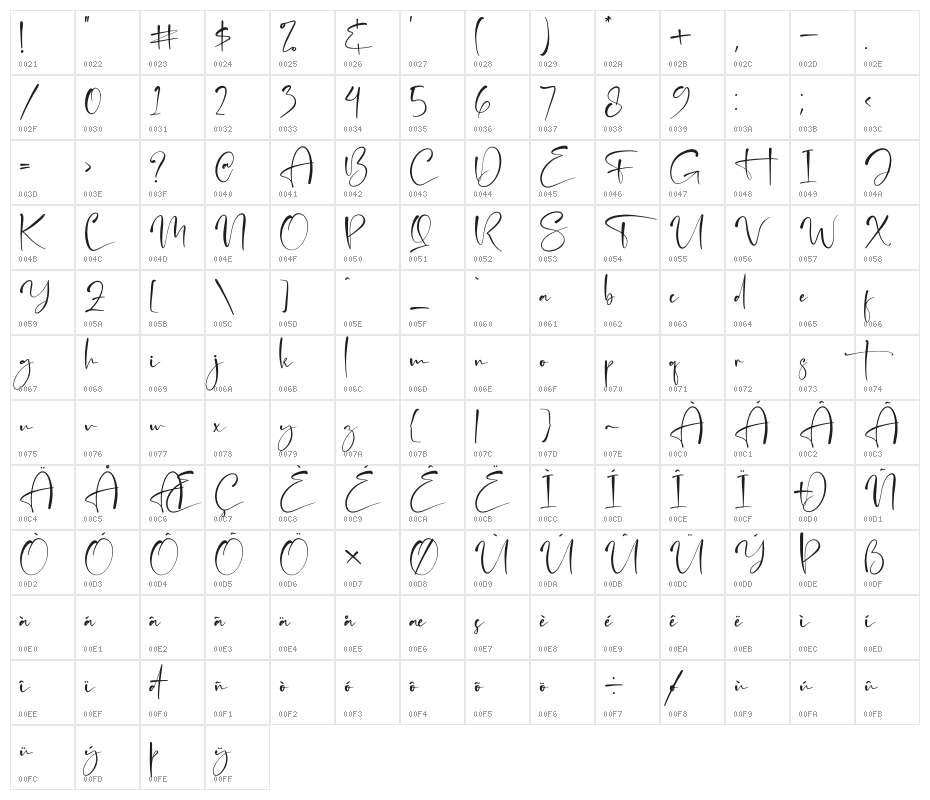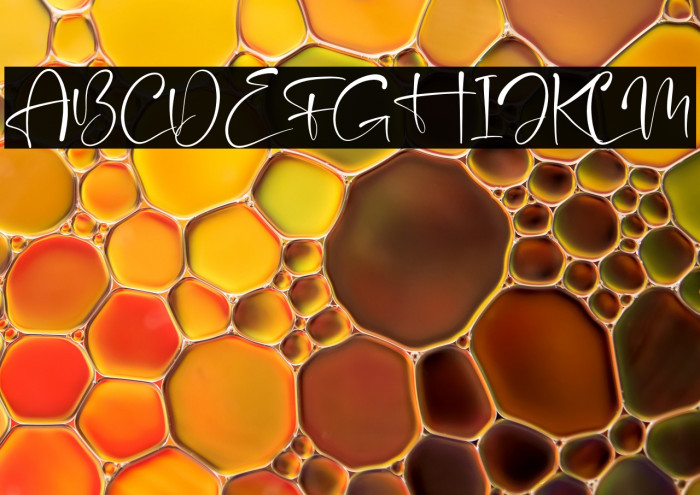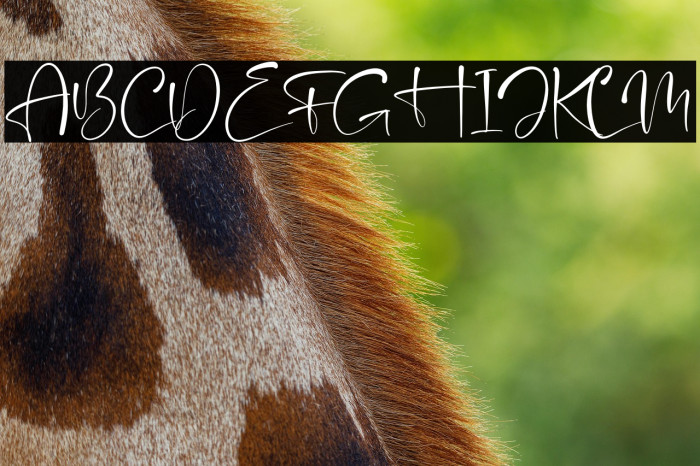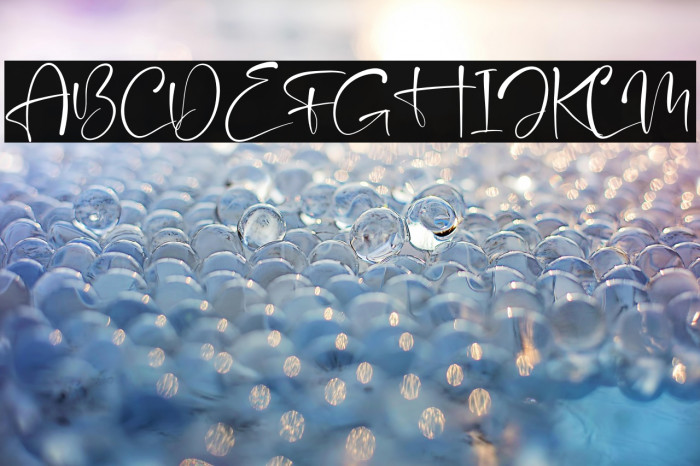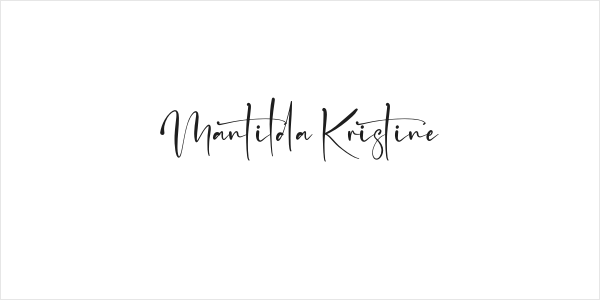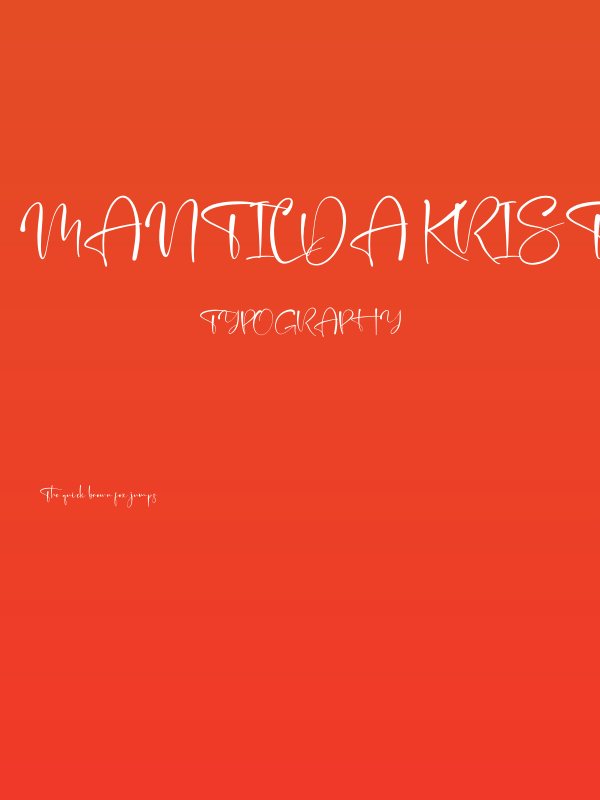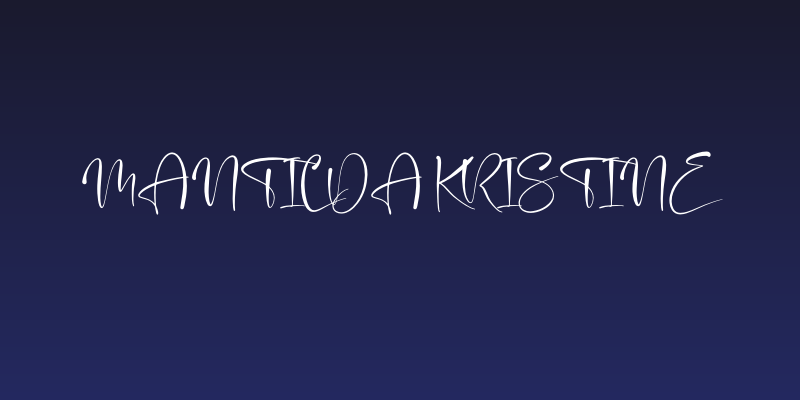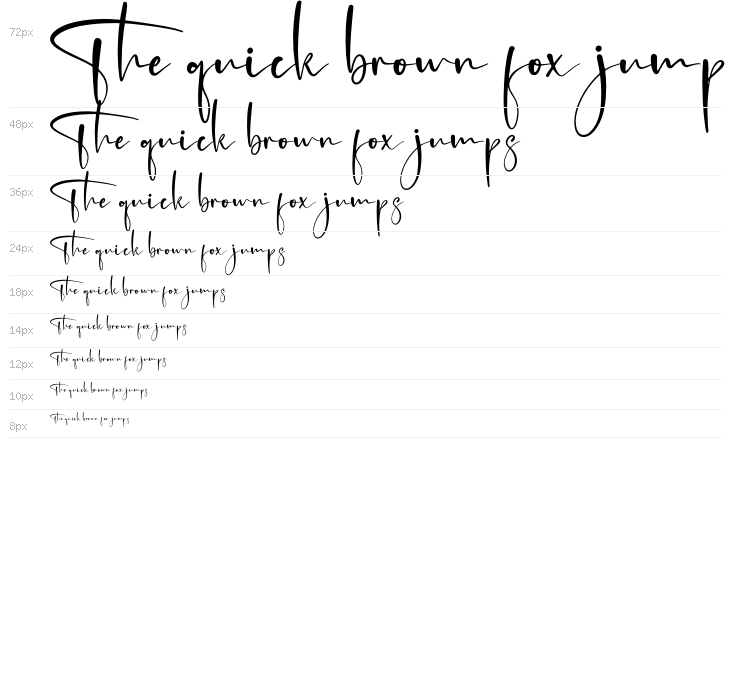
Mantilda Kristine Font
Mantilda Kristine Description
This font features a dynamic and flowing script style, characterized by its elegant and fluid letterforms. The uppercase letters exhibit a sense of movement with their sweeping curves and loops, while the lowercase letters maintain a consistent rhythm with their connected strokes. The numerals are bold and slightly slanted, complementing the overall cursive aesthetic. Special characters are creatively integrated, adding a playful touch to the design. The font's artistic flair makes it suitable for projects that require a personal and expressive touch.